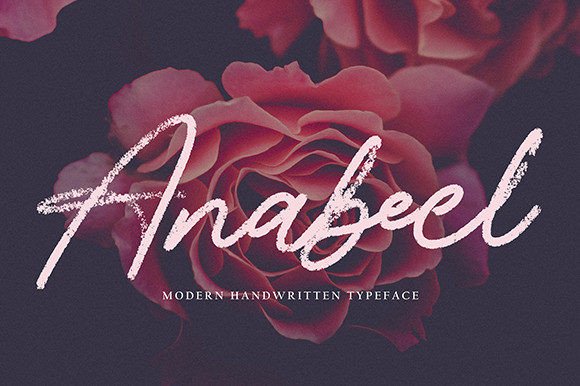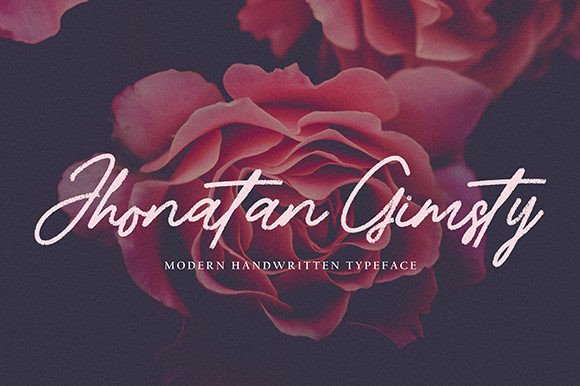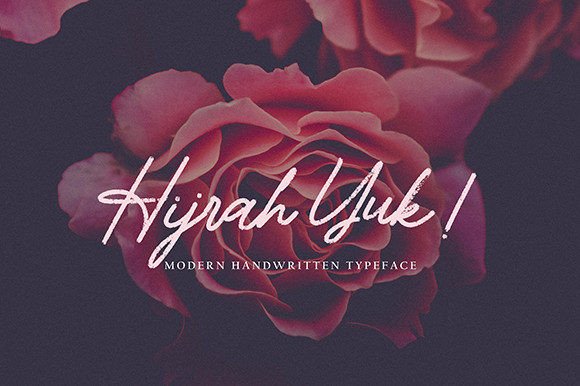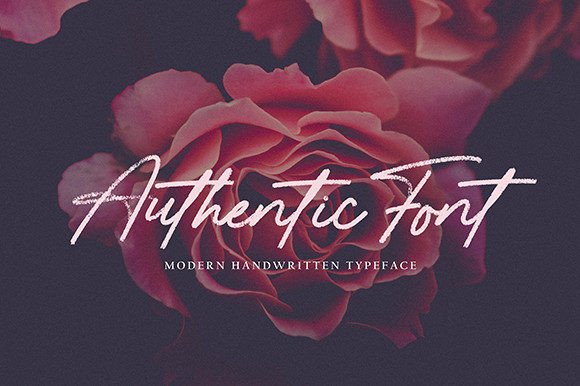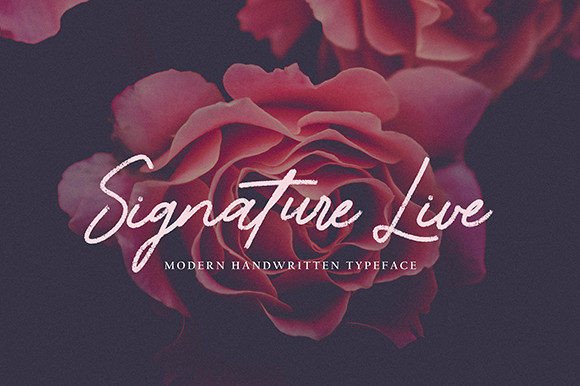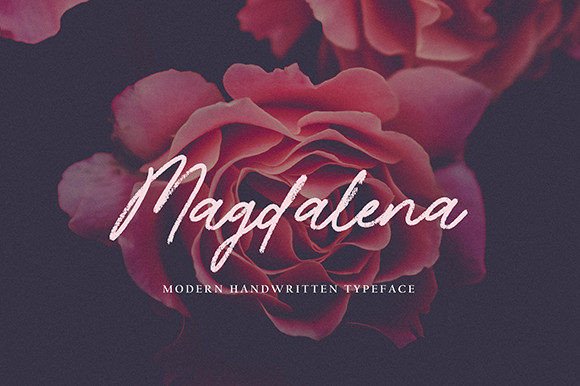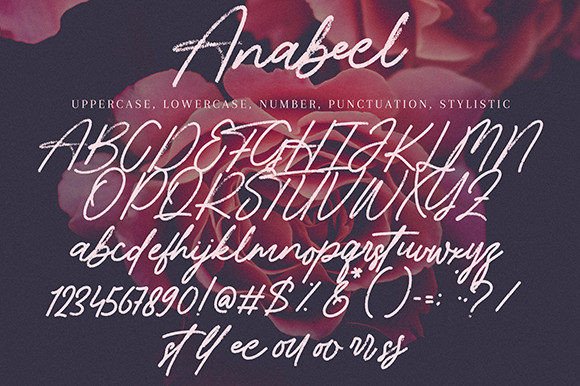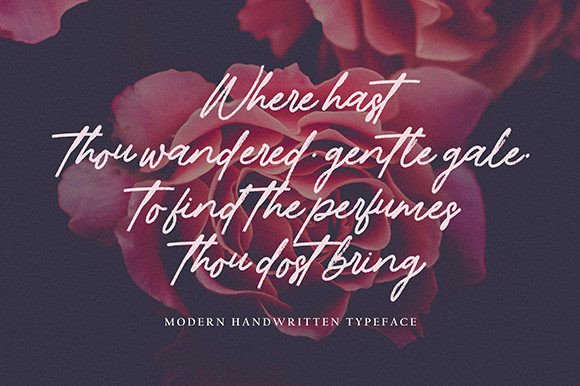
Anabeel Font
Anabeel: An Elegant Handwritten Font with a Dainty Touch
If you’re looking to add grace and personality to your creative work, Anabeel is exactly what you need. This elegant handwritten font was designed with sweet, delicate strokes that radiate charm. With its dainty curves and soft flow, Anabeel is perfect for anything that needs a handcrafted, feminine feel.
From custom stationery to unique branding, this font adds a personal and polished touch to every design.
A Handwritten Style That Feels Thoughtful and Warm
Anabeel is the ideal font when you want to communicate sincerity, style, and attention to detail. Its characters are carefully shaped to mimic authentic handwriting while remaining clean and professional. This makes it especially suited for projects that require emotional connection or artistic flair.
This elegant handwritten font shines in:
• Custom letterheads and envelope designs
• Wedding invitations and event stationery
• Creative blog or website headers
• Personalized thank-you cards and notes
• Feminine branding projects
• Product packaging and boutique labels
Whether you’re working on a commercial brand or a DIY gift, Anabeel offers versatility and class.
Why Designers Adore Anabeel
Designers appreciate fonts that strike the right balance between elegance and usability. Anabeel offers just that. It feels hand-crafted but remains easy to read and incredibly versatile. Its smooth lines and consistent structure allow for both casual and sophisticated aesthetics.
Here’s why Anabeel stands out as an elegant handwritten font:
• Light and graceful letterforms
• Smooth transitions and balanced spacing
• Excellent readability at various sizes
• Versatile for both print and digital designs
• Perfect pairing with minimalist or floral styles
It’s a reliable go-to font for adding personality to projects without sacrificing clarity.
Perfect for Romantic, Feminine, and Artistic Projects
Anabeel brings a fresh softness to every word it touches. It’s an ideal font for designers and creatives working in:
• Wedding and event planning
• Boutique product packaging
• Crafting blogs and stationery shops
• Lifestyle brands and personal blogs
• Art prints, quote posters, and journals
Its timeless, handwritten feel makes it an excellent choice for designs that require elegance and approachability.
Whether you’re designing heartfelt invitations or dreamy brand visuals, Anabeel is your secret weapon. This elegant handwritten font delivers charm, balance, and creativity in every character.